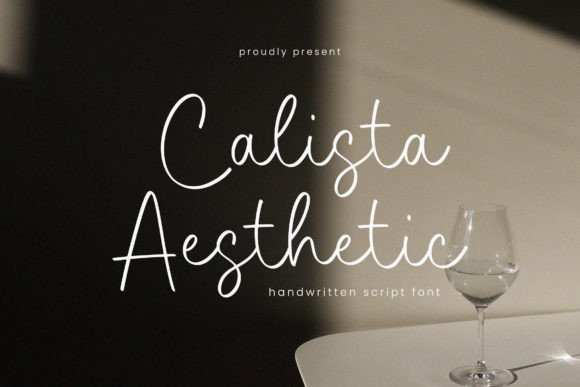
The Elusive Perfect Font: My Journey with Calistha Aesthic
I’ll never forget the time I was working on a wedding invitation project, and my client asked for a font that was “elegant, yet playful.” I scoured the internet, tried out dozens of fonts, but nothing seemed quite right. That was until I stumbled upon Calistha Aesthic, an elegant handwritten script font that stole my heart. In this article, I’ll share my experience with Calistha Aesthic, its features, and how to make the most of it in your designs.
An Honest Review of Calistha Aesthic
- ✨ Elegant and sophisticated, perfect for high-end branding and packaging
- 💫 Beautifully crafted with attention to detail, giving it a unique character
- 🎨 Versatile and adaptable to various design styles and industries
While Calistha Aesthic is an amazing font, it’s not perfect. Here are a few things to keep in mind:
- 🤔 Some letters, like the lowercase “g” and “y,” have a slightly condensed feel, which might affect pairing with other fonts
- ⚠️ The font doesn’t come with an extensive range of weights, which might limit its use in certain design scenarios
The Designer Inspiration Behind Calistha Aesthic
Calistha Aesthic was designed with the intention of creating a beautiful, elegant script font that captures the essence of handwritten calligraphy. The designer aimed to create a font that would be perfect for a variety of design applications, from luxury branding to wedding invitations.
Q: What is Calistha Aesthic?
Calistha Aesthic is an elegant handwritten script font, perfect for product packaging, branding projects, magazine, social media, weddings, cards, invitations, and more!
Q: Is Calistha Aesthic suitable for body text?
While Calistha Aesthic is highly legible, it’s best suited for headlines, titles, and short paragraphs. For longer body text, you may want to consider a more traditional serif or sans-serif font.
Q: Does Calistha Aesthic come with OpenType features?
Yes, Calistha Aesthic comes with a range of OpenType features, including ligatures, stylistic alternates, and glyphs. These features allow you to add visual interest and creativity to your designs.